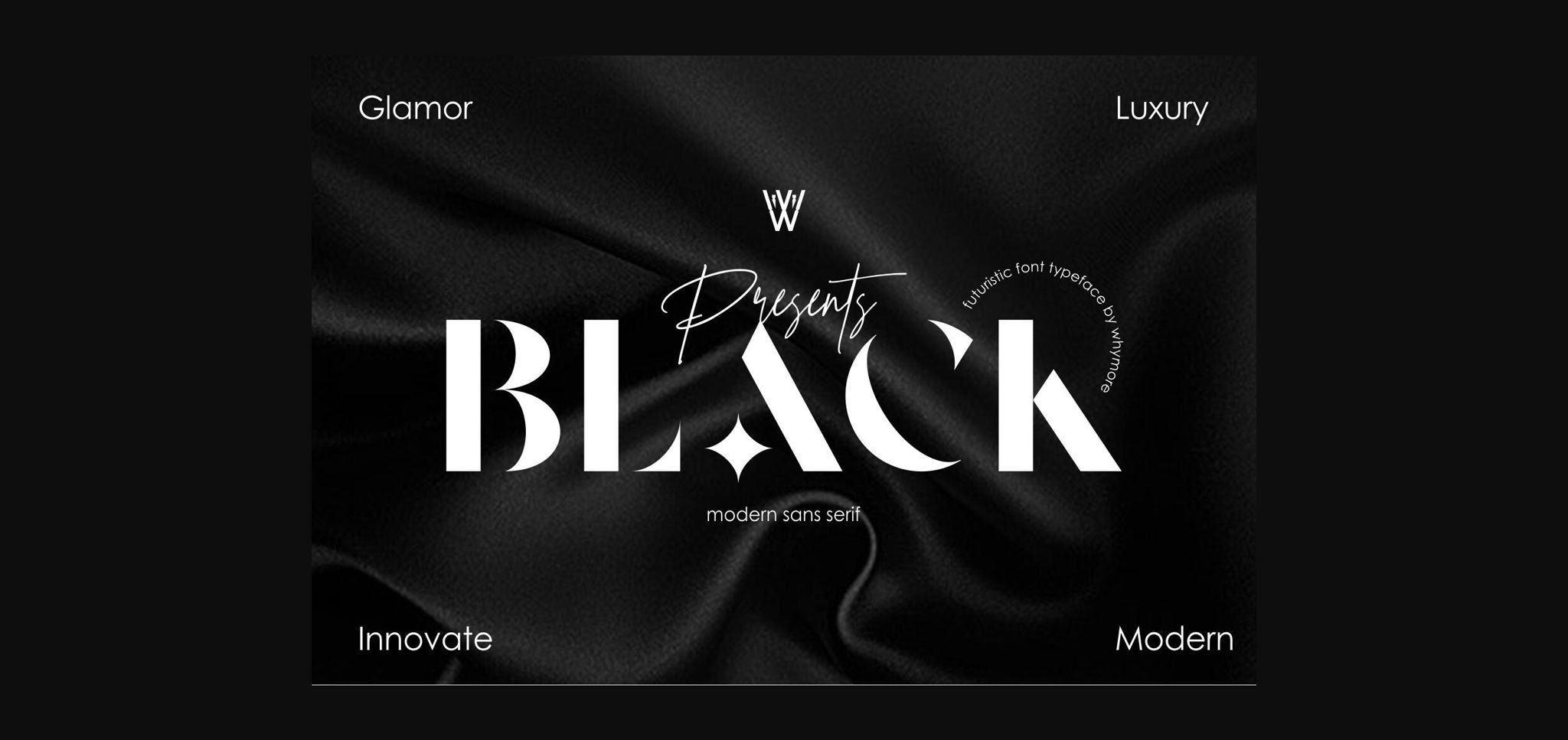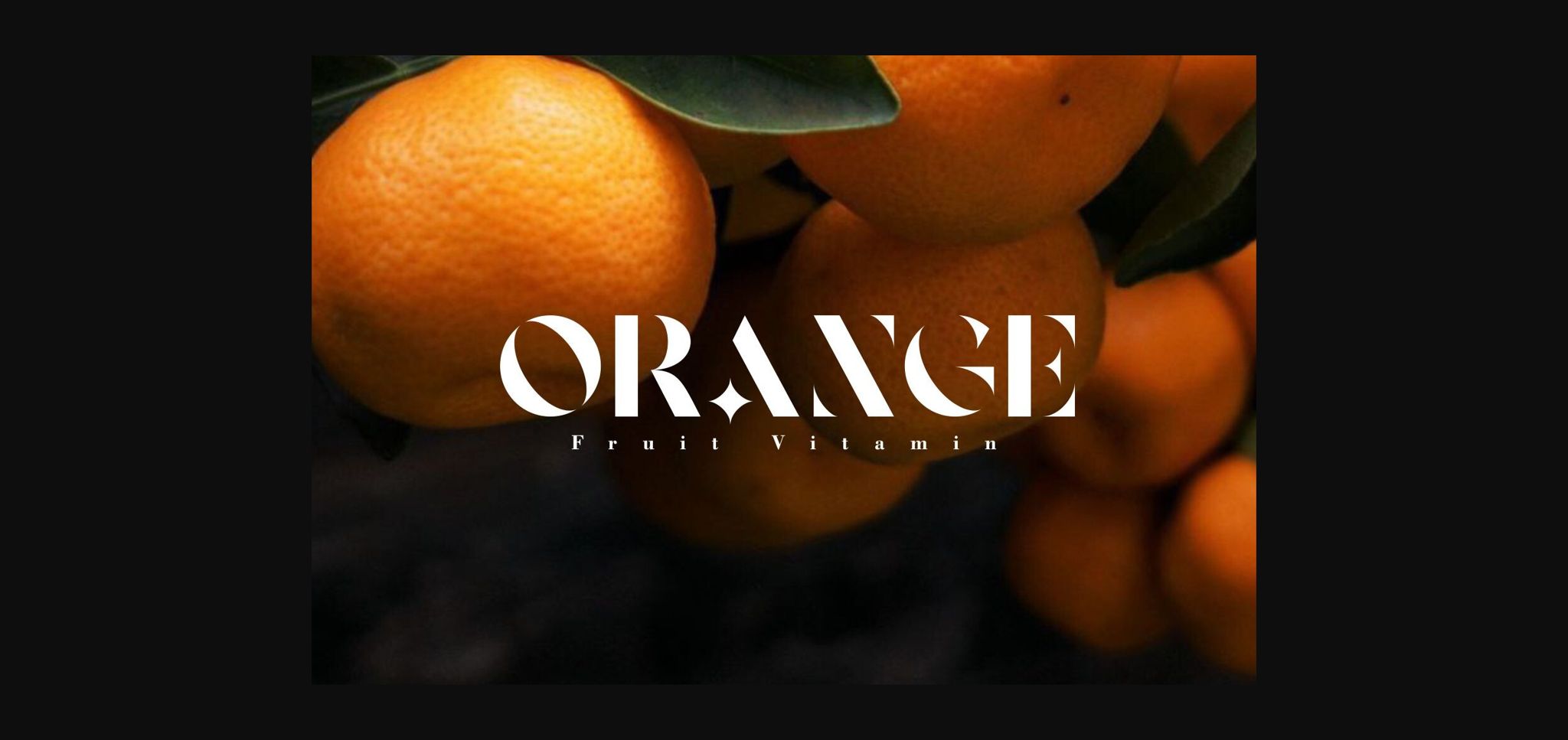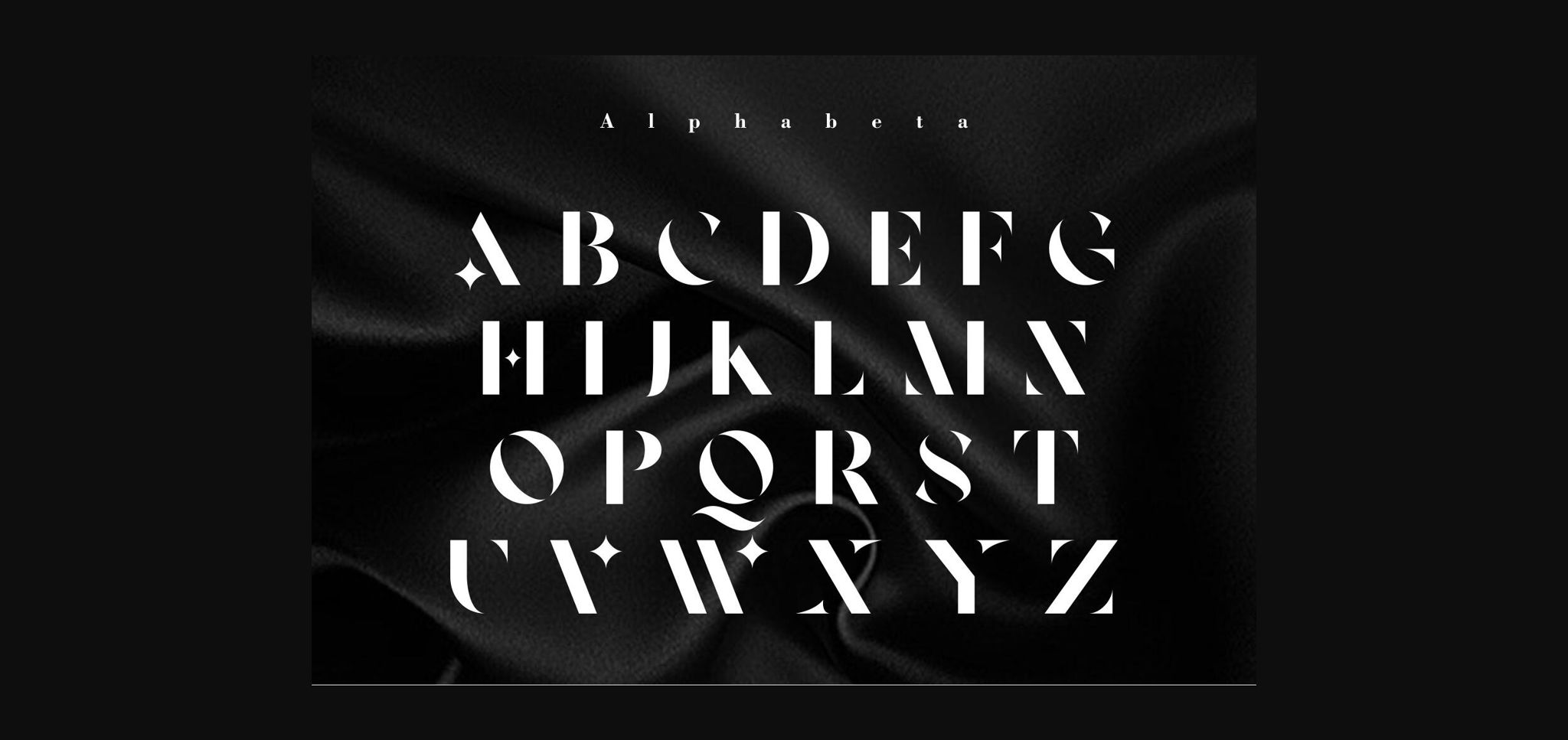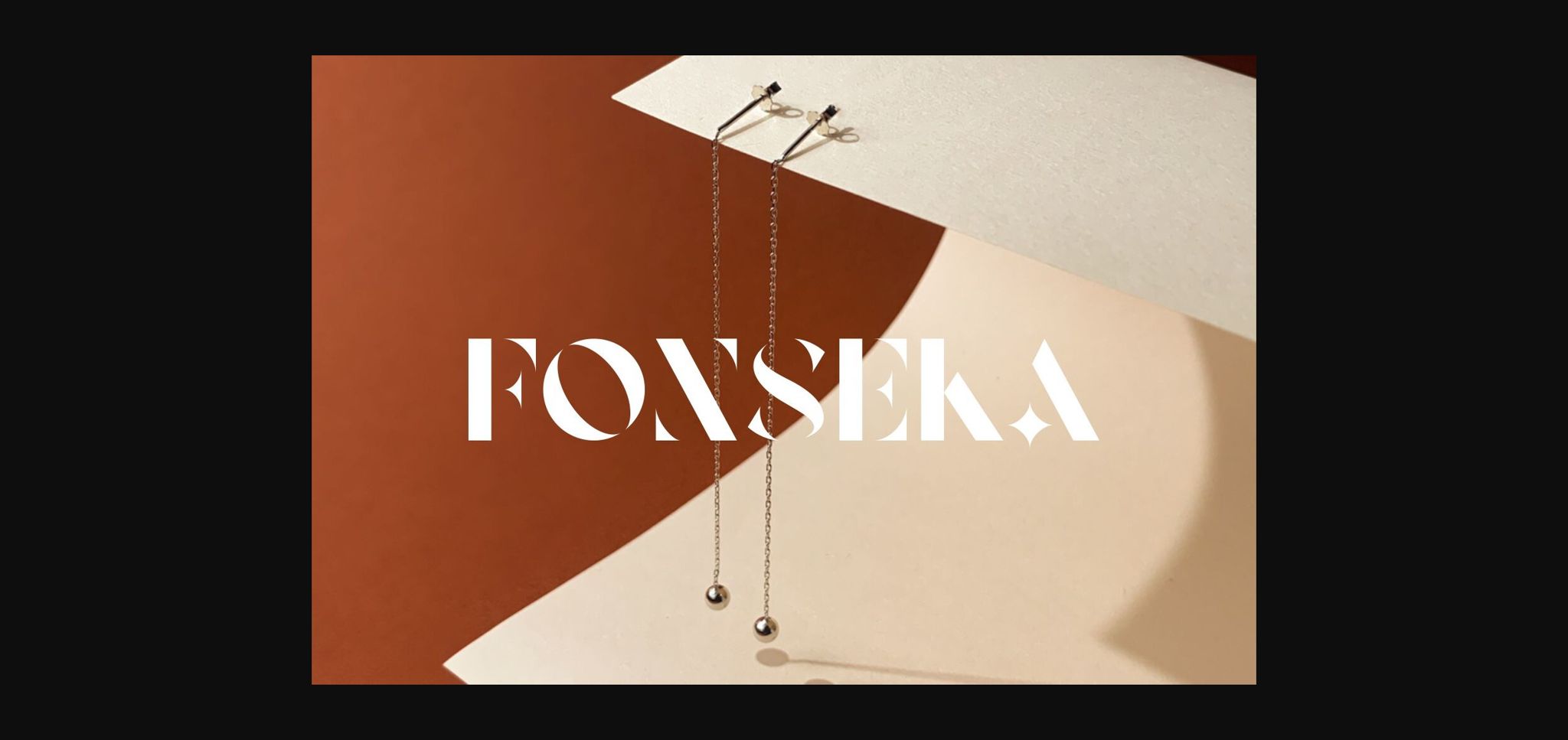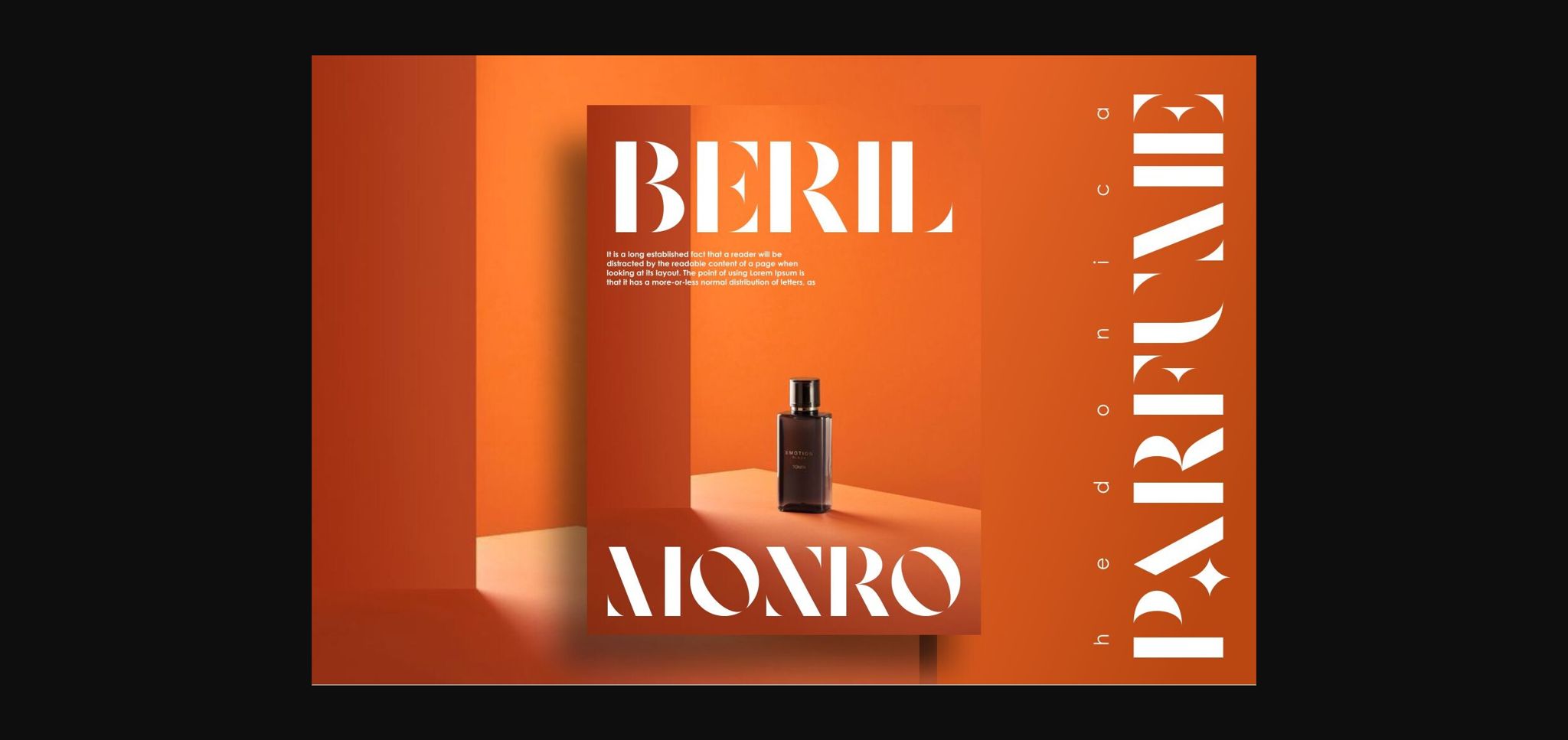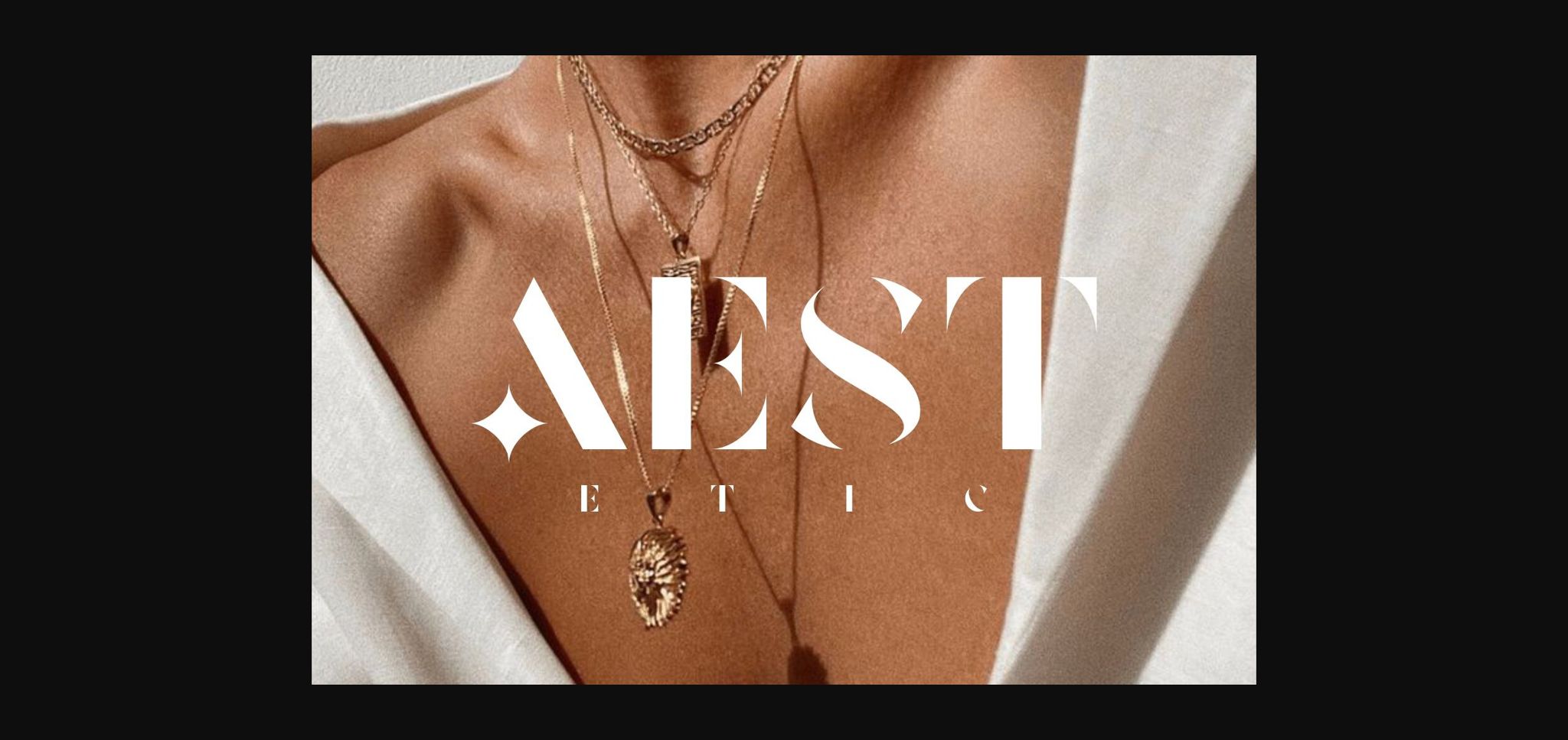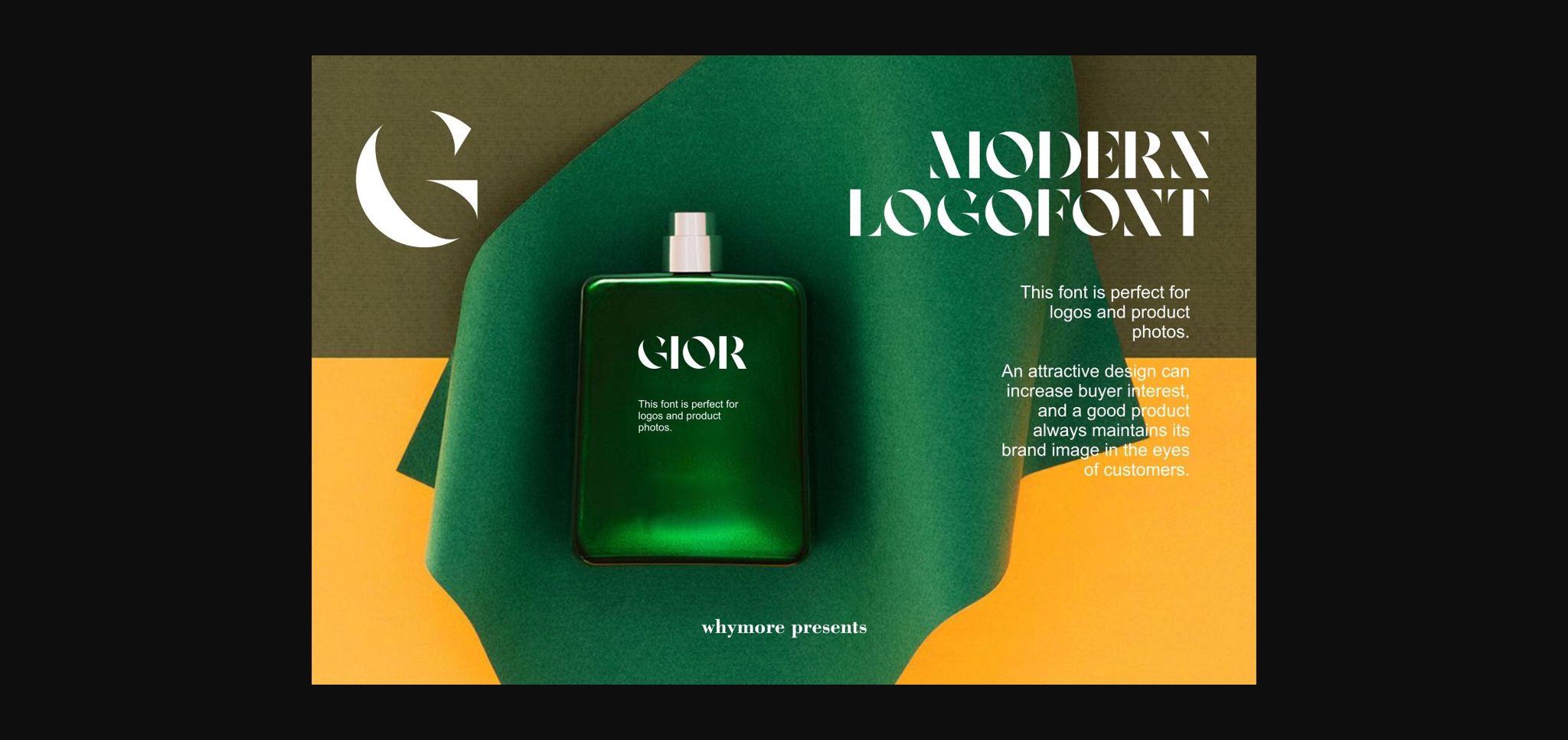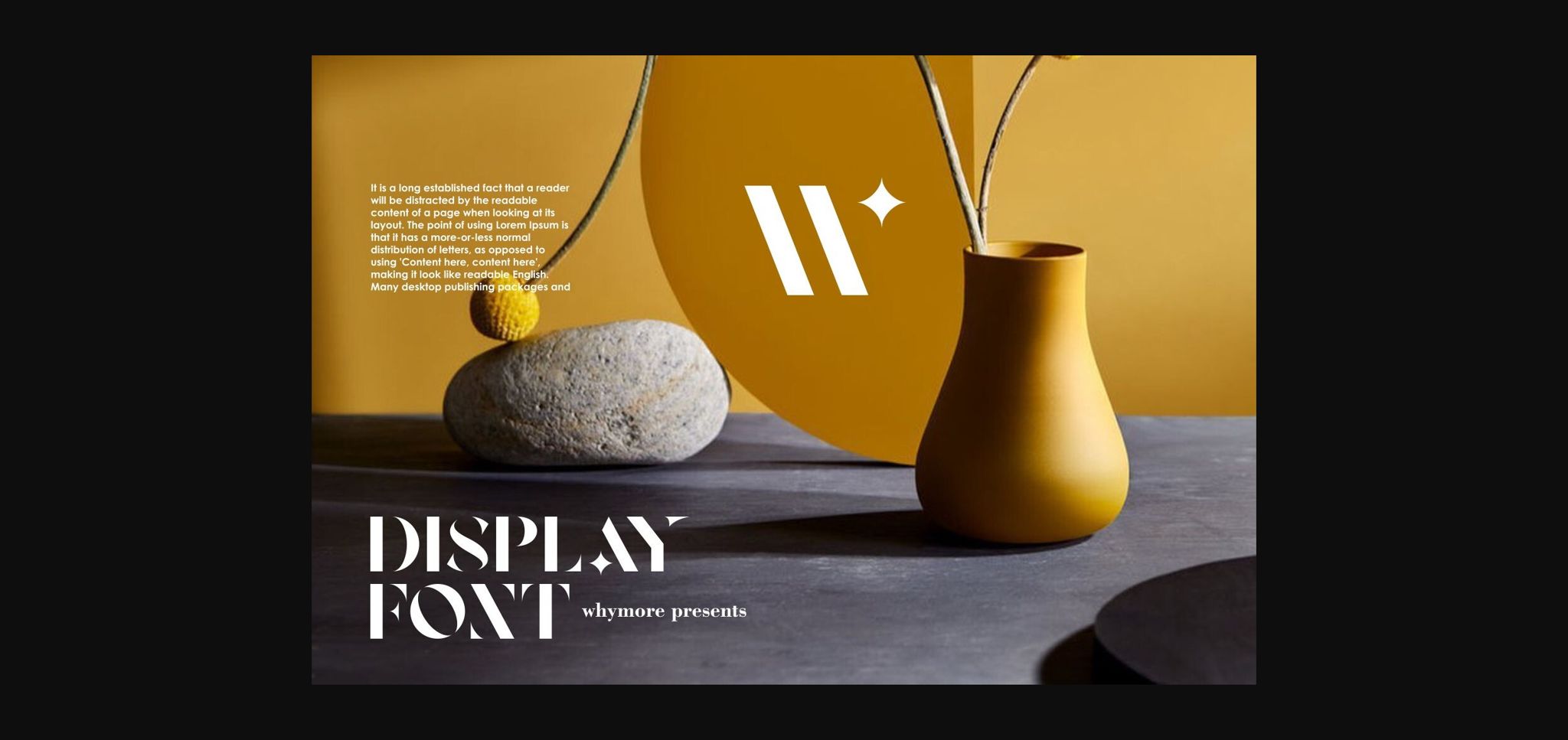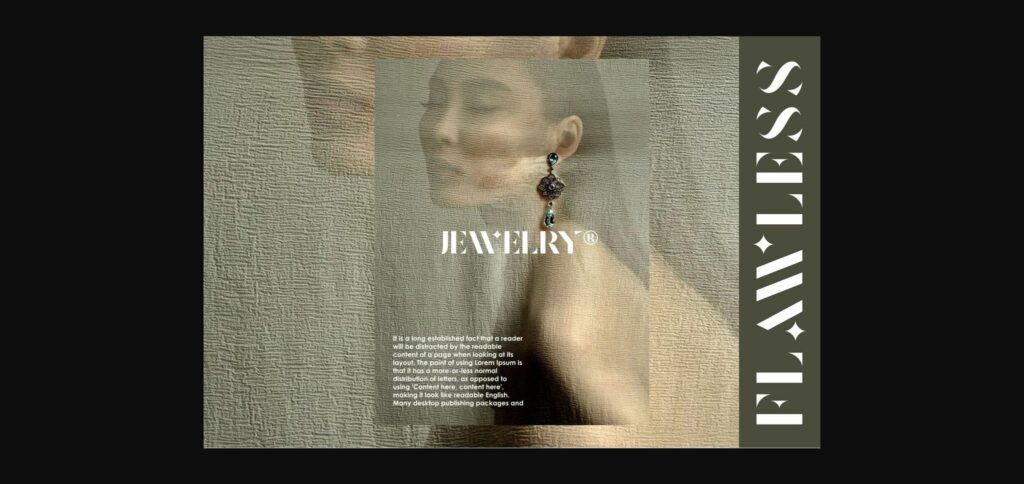
HomeSans Serif FontsBlack Font Sans Serif Fonts Black Font FacebookTwitterPinterestWhatsApp 1 of 11 ... Black Font Poster 2... Black Font Poster 3... Black Font Poster 4... Black Font Poster 5... Black Font Poster 6... Black Font Poster 7... Black Font Poster 8... Black Font Poster 9... Black Font Poster 10... Black Font Poster 11... About Black Font Black is an elegant and modern sans serif font. This minimalist and clean vibe can easily apply to your favorite designs such as book covers, magazines, social media posts, invitations, and so much more! DOWNLOAD NOW 159 0 People also explored 21st Street Font Amstirdam Font Beach Sunshine Font Molandika Font Hello Adelyne Font Kold Font Darling Font Coconut Font Always Chubby Font Kalina Font Iam Happy Font Rotisseria Font TagsBlackBlack Font Previous articleBolaga FontNext articleFlowery Font LEAVE A REPLY Cancel reply Comment: Please enter your comment! Name:* Please enter your name here Email:* You have entered an incorrect email address! Please enter your email address here Website: Save my name, email, and website in this browser for the next time I comment. Unlock Endless Creativity with the FREE September Clipart Huge Bundle (Valued at $700!) Personal Use Free Namskow Personal Use Free Read more Super Discount Personal Use Free Read more First Be Lucky Personal Use Free Read more Santhony Personal Use Free Read more BLOG Using Fonts in Digital Marketing: Tips to Strengthen Your Brand Identity In the realm of digital marketing, every visual element plays a crucial role in shaping a brand's identity, and fonts are no exception. The... The 10 Best Handwriting Fonts to Add Personality to Your Designs Transform Your Website: Elevate Your Typography with 7 Best Web Font Generators Free Fonts Risk: Why Free Fonts Can Be Dangerous for Designers